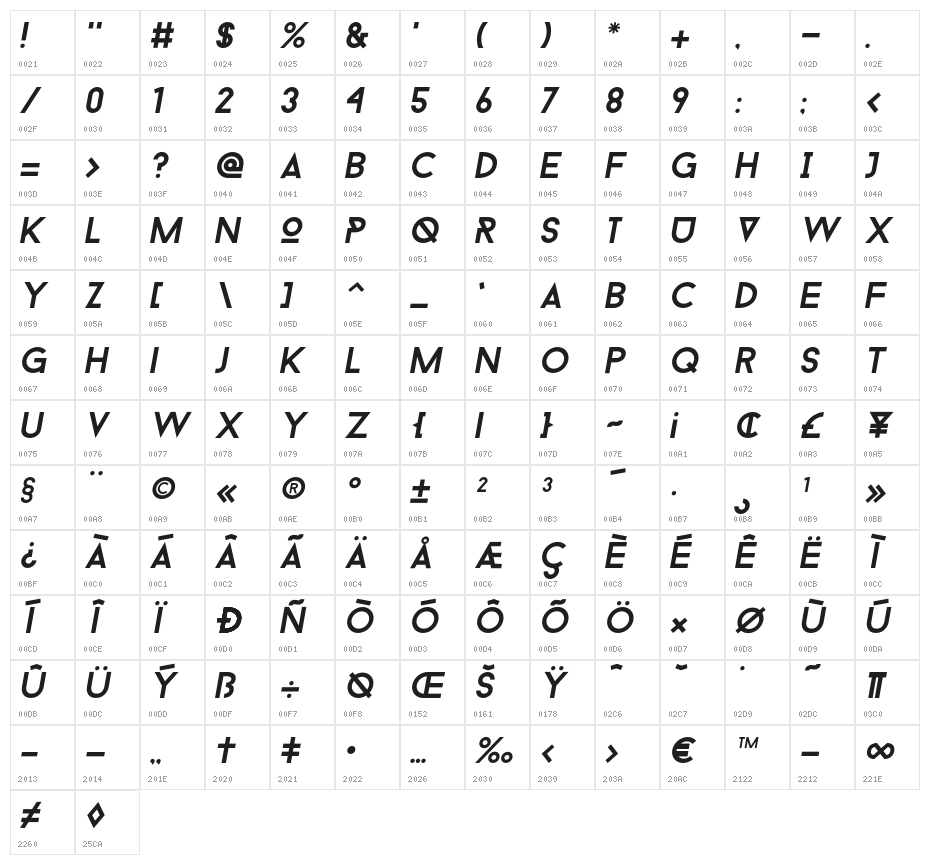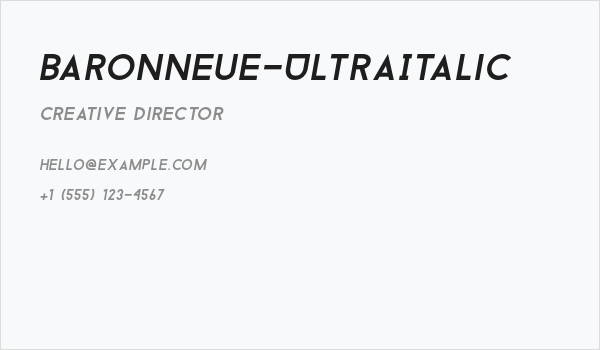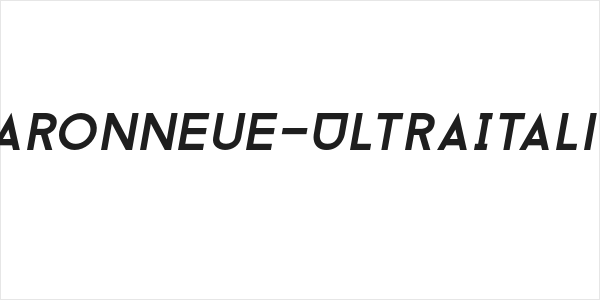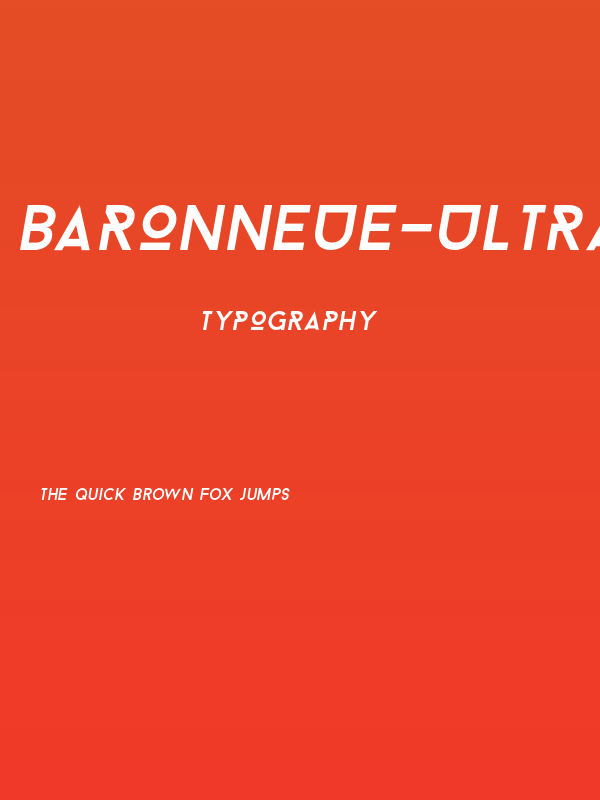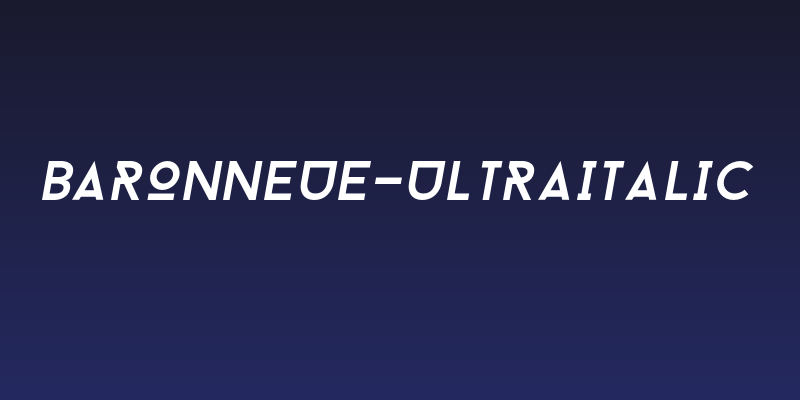
BaronNeue-UltraItalic Font
BaronNeue-UltraItalic Description
This font features a modern and sleek design with a strong italic slant, giving it a dynamic and forward-moving appearance. The characters are bold and slightly condensed, providing a compact yet impactful look. The uppercase and lowercase letters maintain a consistent style, with clean lines and sharp angles that enhance readability. The numerals are well-proportioned, complementing the overall aesthetic. Special characters are distinct and maintain the font's cohesive style. This font is ideal for projects that require a contemporary and energetic feel.
| Proposed Projects | Ideal for branding, advertising, headlines, and digital media projects that require a modern and energetic look. |